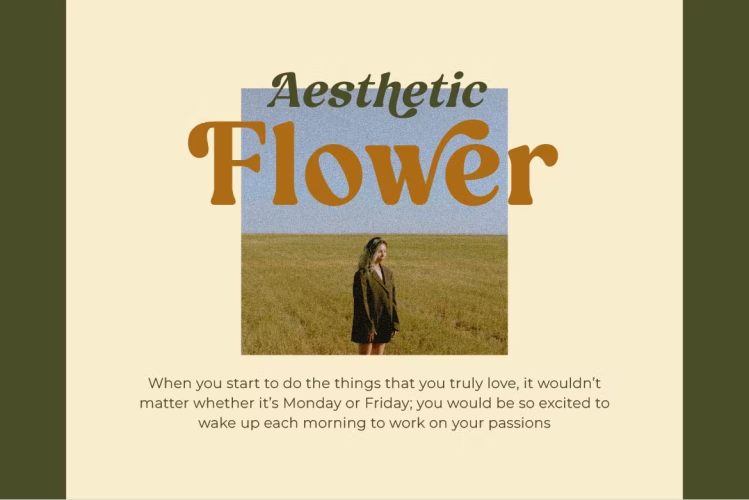
Meizzaluna Font
Meizzaluna Font is a set of upper & lowercase serif characters which includes a large range of punctuation glyphs, numerals, and multilingual support. A full set of stylistic alternates for lowercase characters are also available.
Where Meizzaluna Font works best
Meizzaluna Font gives long-form text a classic, trustworthy rhythm — ideal for magazine spreads, annual reports and book interiors.
Pair Meizzaluna Font with generous letter-spacing for wordmarks in fashion, hospitality, wine and jewellery branding.
Use Meizzaluna Font for slide titles in Keynote, PowerPoint or Google Slides to add authority without looking dated.
What is Meizzaluna Font good for?
Meizzaluna Font is a Serif Fonts typeface tagged Meizzaluna, Professional, Serif, Serif Fonts. It works well for headlines, logos, posters, social media graphics and branding projects that need a distinctive serif fonts look.